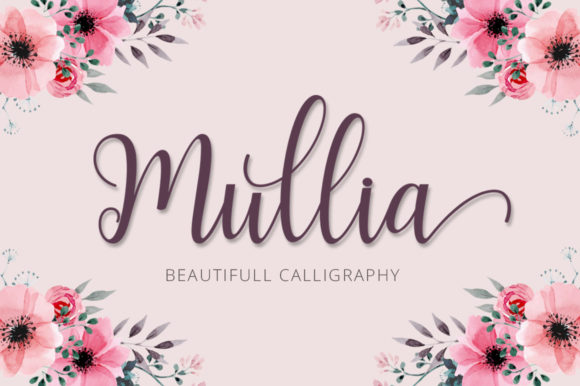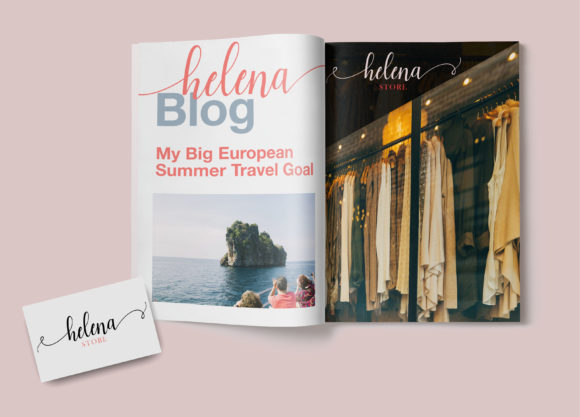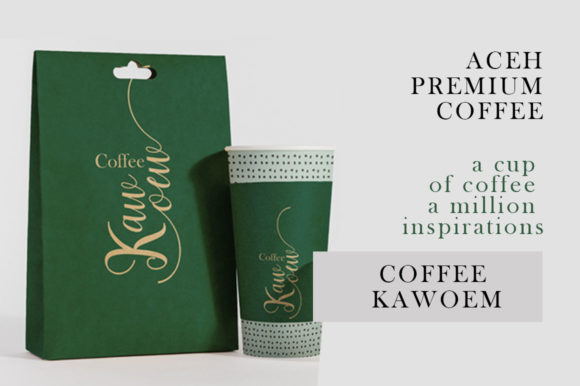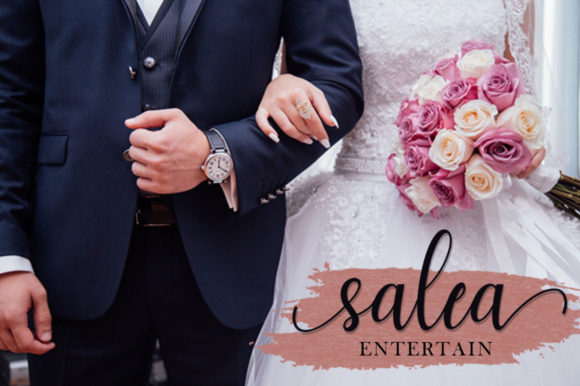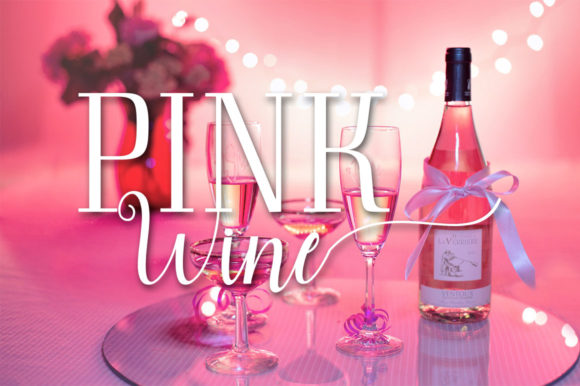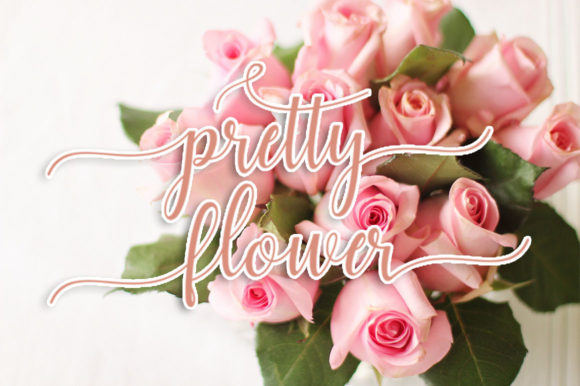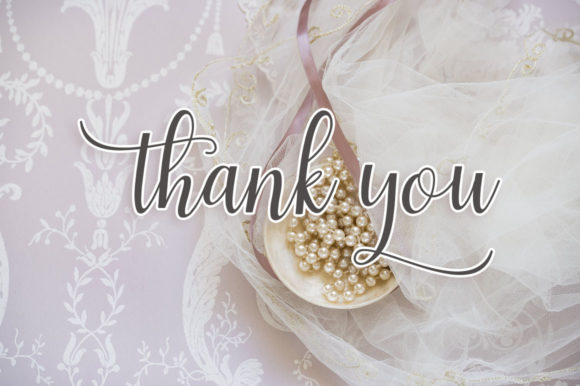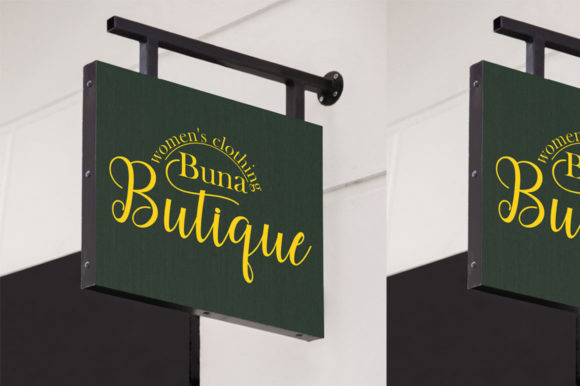
Mullia
About Mullia Font
Mullia is a sweet, soft hand-lettered script. Fall in love with its authentic feel and use it to create gorgeous wedding invitations, beautiful stationary art, eye-catching social media posts, and cute greeting cards.